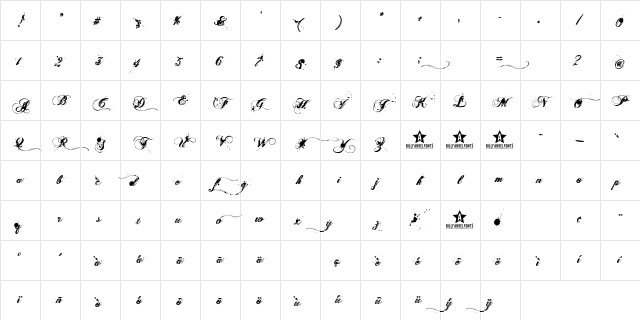
Aenima Regular Free Font
Aenima Regular
Foundry: Billy Argel
Designer: Billy Argel
Design Context for Aenima
Aenima is a composed and adaptable typeface that performs quietly and consistently across a wide range of design contexts.